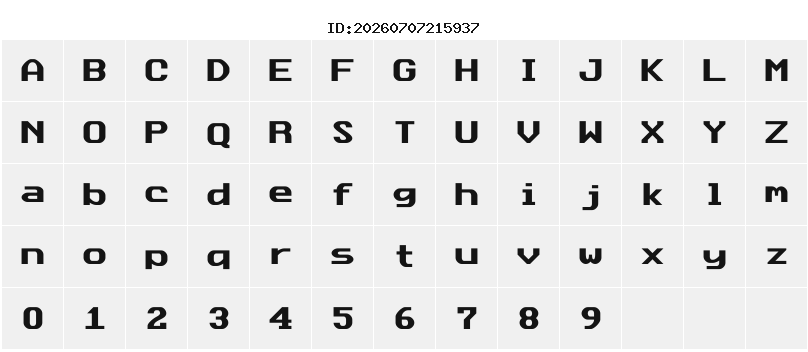
• Font Name: DataSunJustified
• Font ID: FontForge 2.0 : Data Sun Justified : 5-6-2013
• Full Font Name: Data Sun Justified
• Version: Version 0.945
• PostScript Name: DataSunJustified
• Character Count: 170
About DataSunJustified.ttf
DataSunJustified.ttf is a modern, elegant sans-serif font designed for ultimate readability and visual harmony. Perfect for branding, headlines, web design, and print materials.